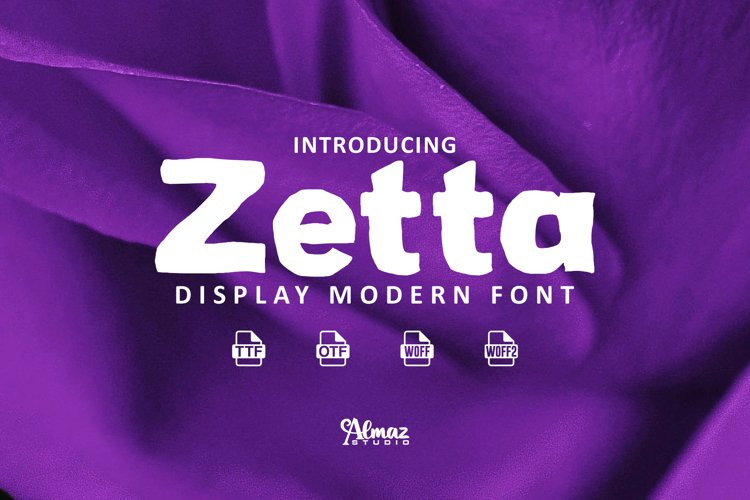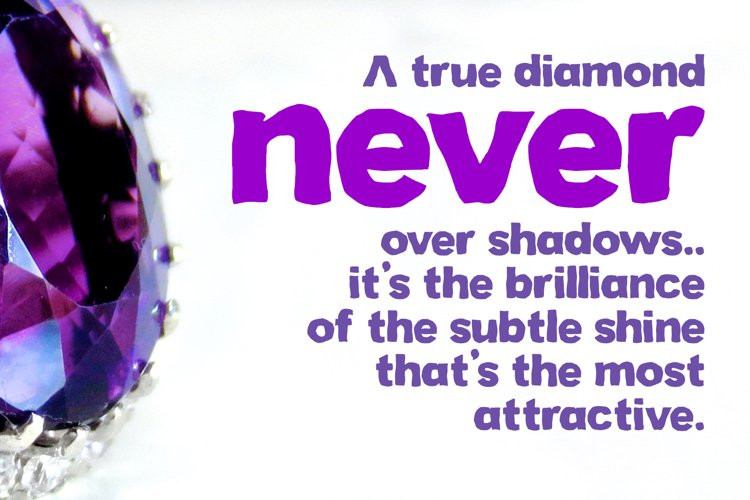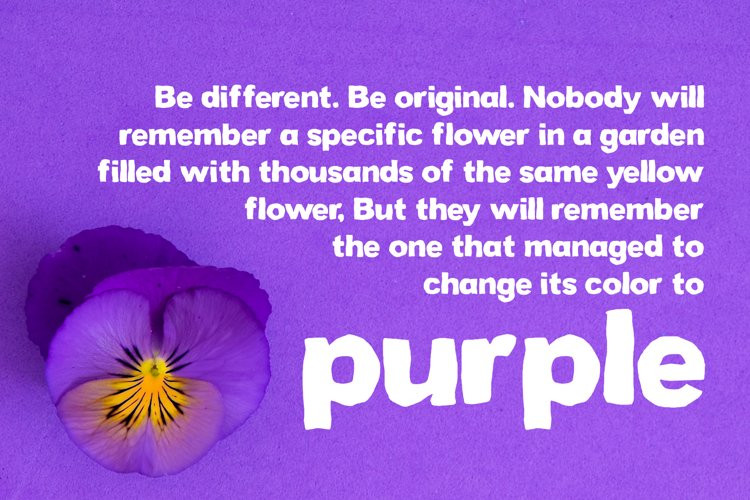
Zetta Font
Zetta FontZetta is a wavy bold fonts are typefaces intended to have dirty look, they are known as filthy fonts and are bold, and they can either be casual or formal in appearance. Zetta It’s a strong modern sans serif display font. The style of this font are strong, modern, grunge, techno, futuristic, manly, sporty etc. Great for logo, brandings, headlines etc. Zetta font is a grungy font with white patches in the letters. It is perfect for your design needs and it was created by Almaz Studio™. It features uppercase letters and supports both standard and alternate characters. This beautiful font can be used for text headlines and advertisement purposes amongst others.